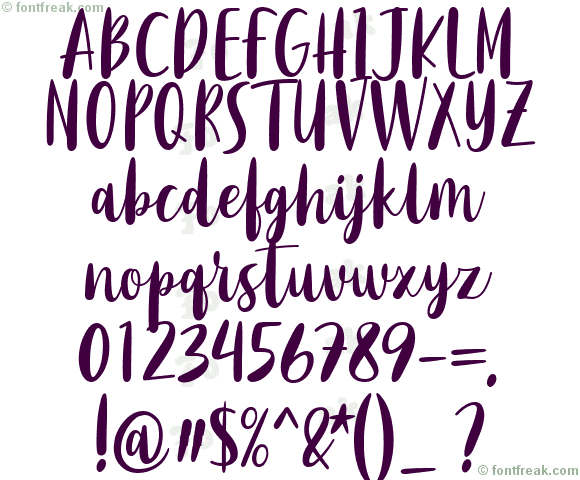
Purple River
The Purple River font by Situjuh Nazara is a stunning script typeface that exudes elegance and charm. This decorative font features a fluid, handwritten style, characterized by its smooth, sweeping strokes and playful curves. The stroke weight varies throughout, giving it a dynamic appearance that adds personality to any design. The high contrast between thick and thin lines creates a sense of sophistication, while the ample spacing between letters enhances readability, making it suitable for various applications.
Perfect for a range of creative projects, the Purple River font shines in wedding invitations, where its romantic flair can beautifully convey heartfelt sentiments. It also works wonderfully for movie posters, adding a touch of drama and artistic flair that can captivate audiences. Restaurant menus will benefit from its inviting, warm character, enticing patrons to explore the culinary delights on offer. Additionally, this font is an excellent choice for branding materials, helping small business owners establish a unique identity that resonates with their target audience.
Graphic designers and content creators will find the Purple River font free download particularly beneficial for enhancing their projects with a touch of creativity and elegance. Its versatile nature allows it to adapt to various themes, from whimsical to sophisticated, making it a valuable addition to any designer's toolkit.
What sets the Purple River font apart is its ability to combine artistic expression with functionality. It captures the essence of handwritten charm while maintaining a professional appearance, making it suitable for both personal and commercial use. Whether you're crafting an eye-catching invitation or a standout advertisement, this font brings a distinctive touch that elevates your design to the next level.